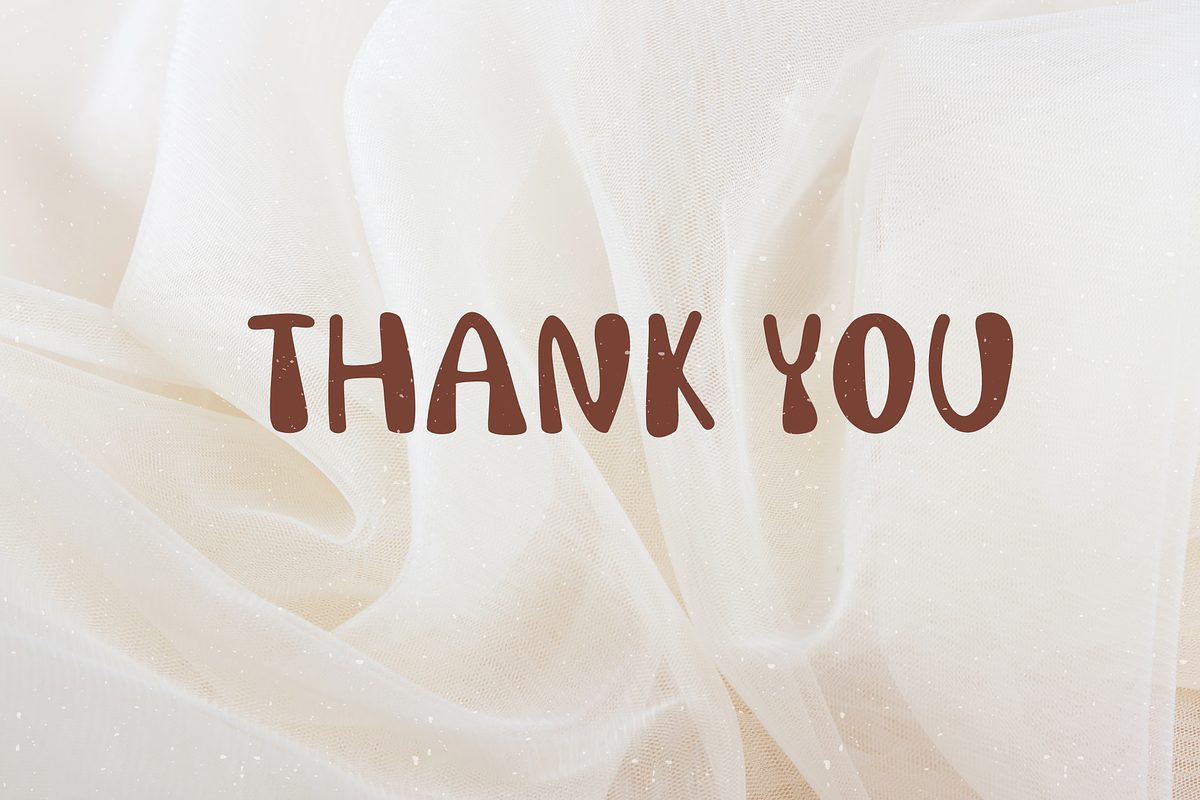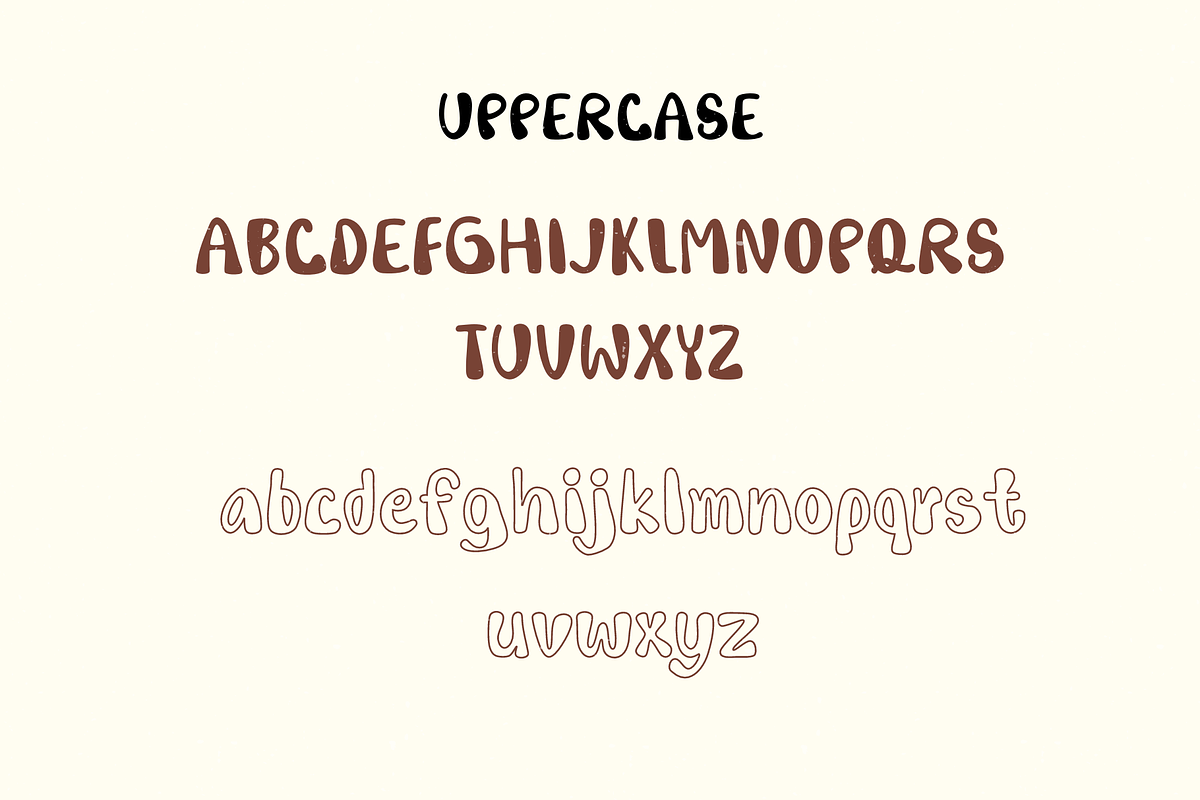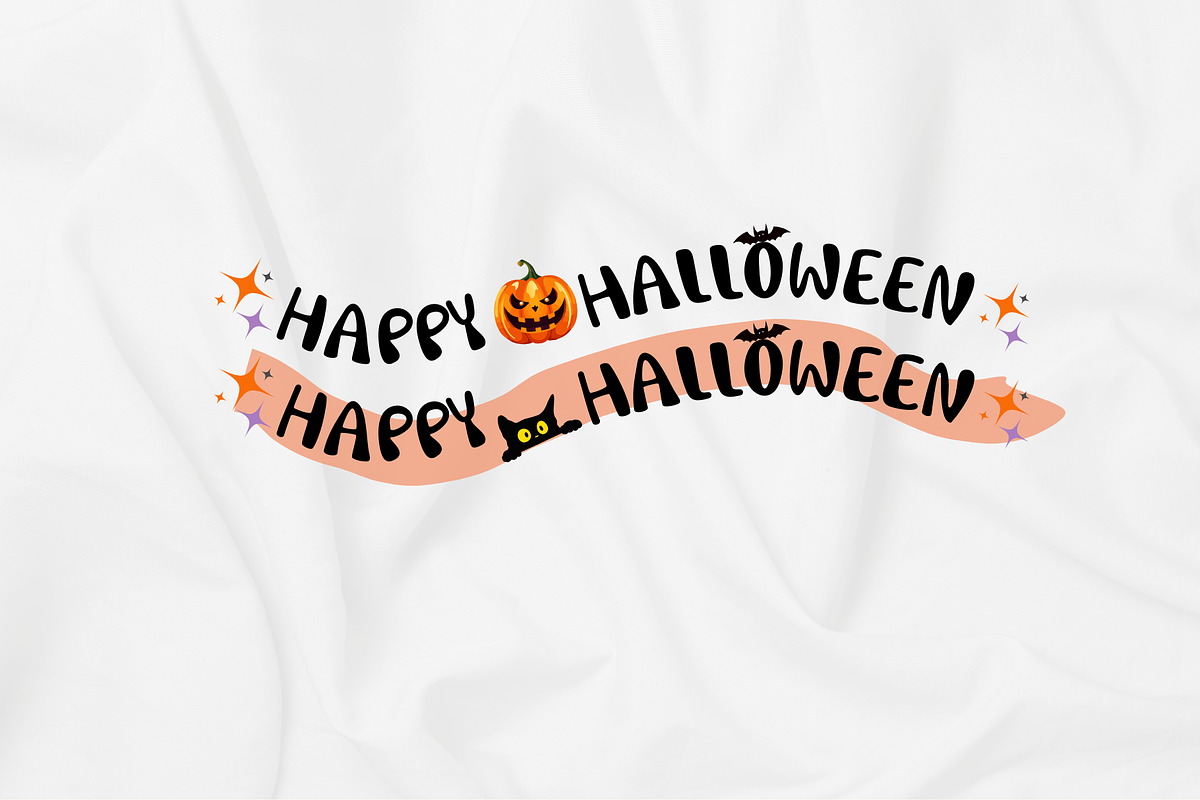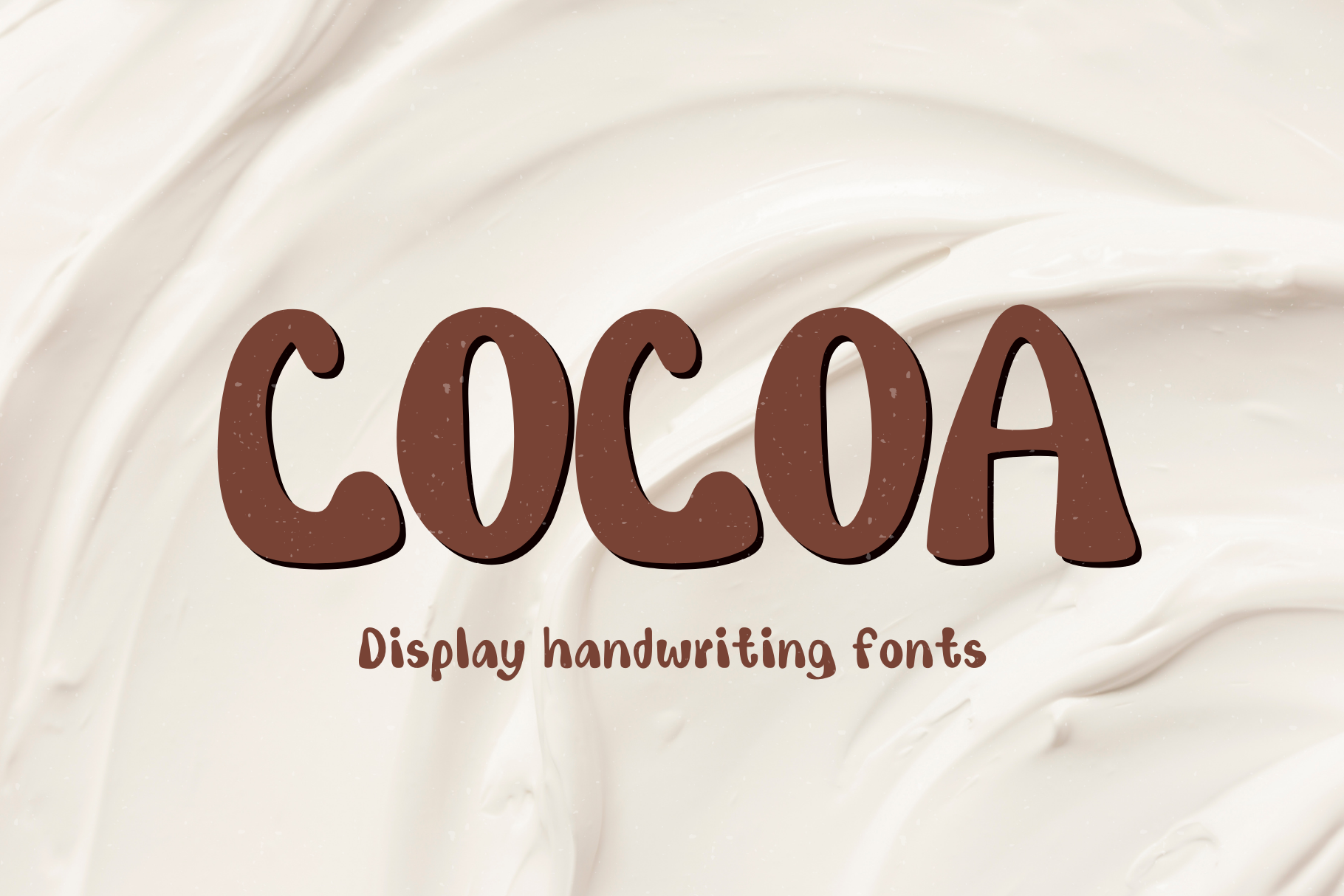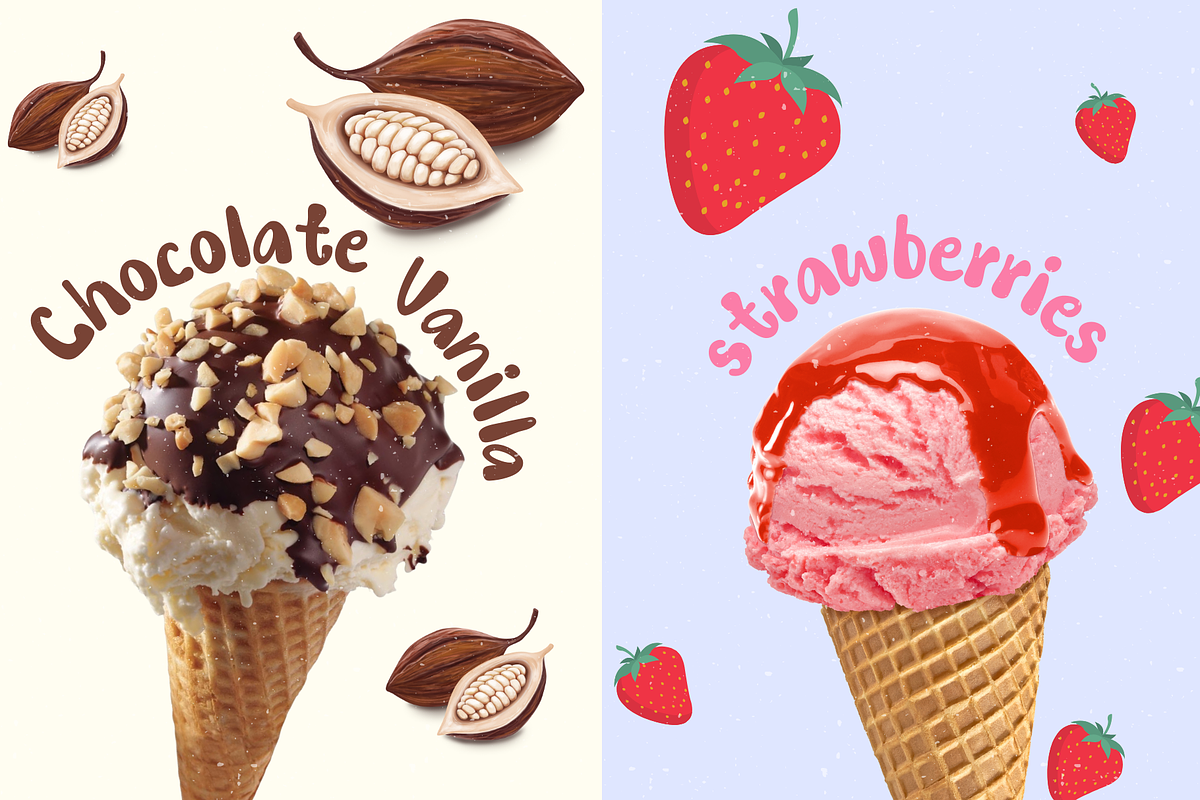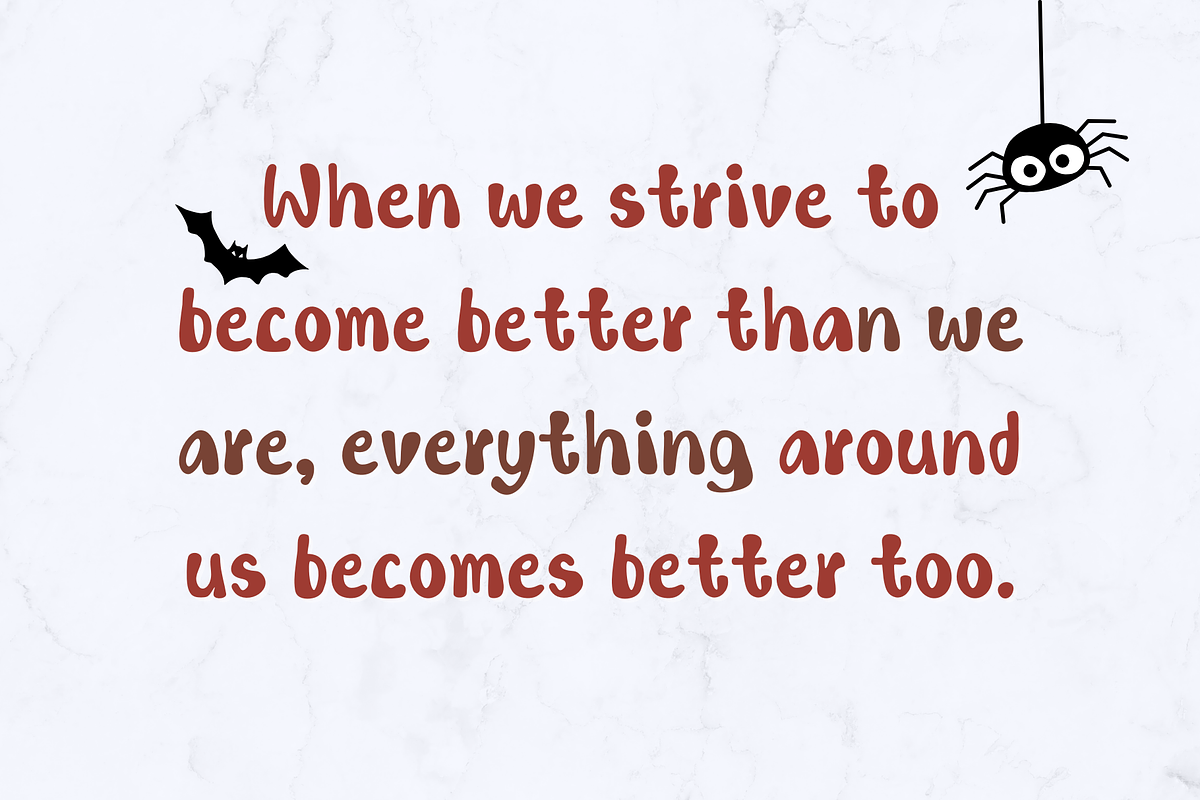
Cocoa fonts
"CoCoa font These decorative handwritten fonts are cute, stylish, and simple, perfect for any style. The smooth curves create a soothing, minimalistic feel, making them suitable for various design projects. Whether it’s for any occasion, 'Cocoa Font' will elevate your designs and make them even more stylish, adding fun and creativity to your work!"
”The decorative fonts are designed to be simple and versatile, suitable for various styles of work, making your designs stylish and easy to use.“